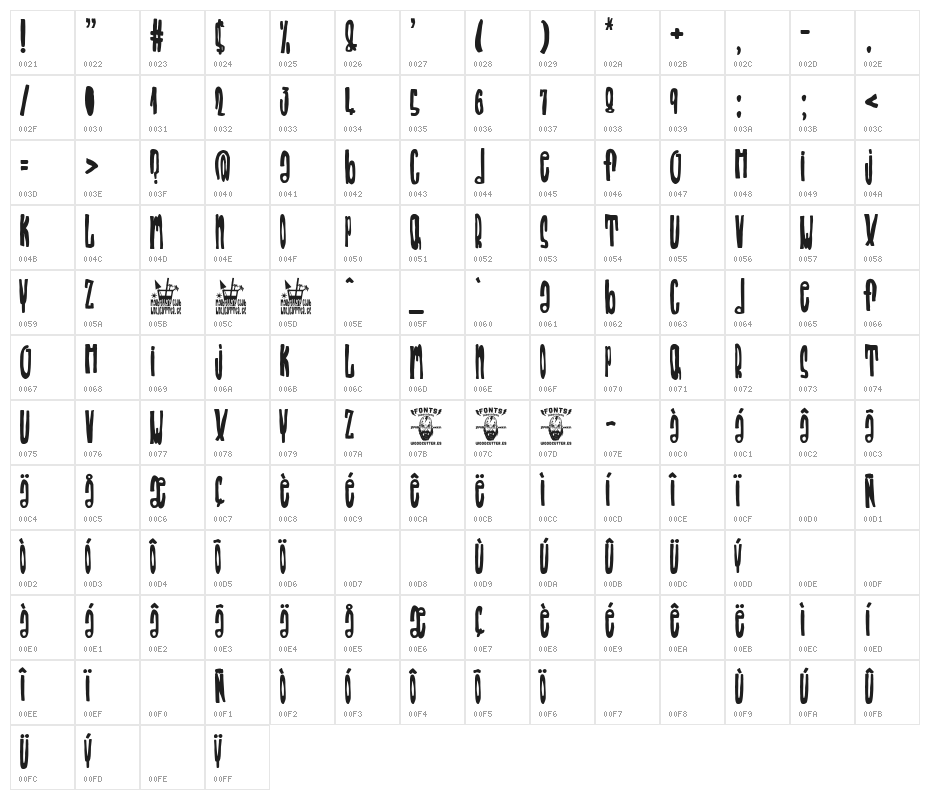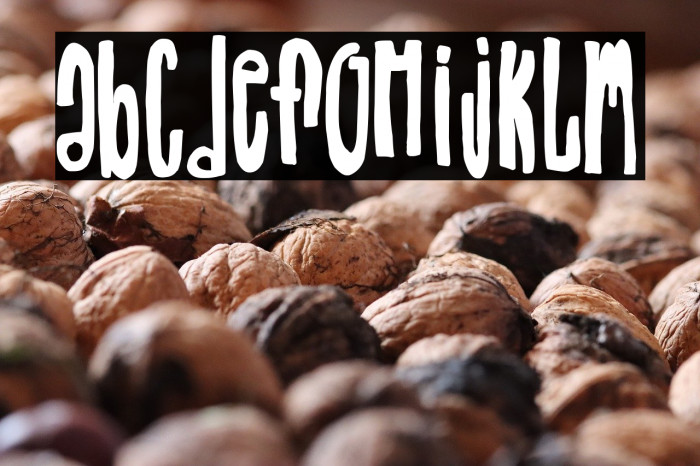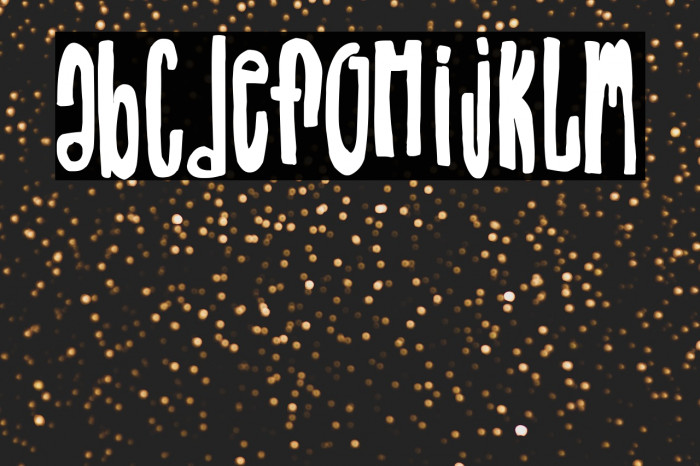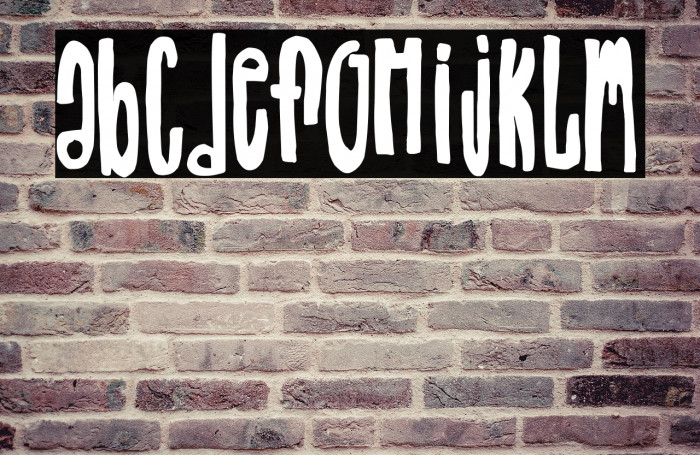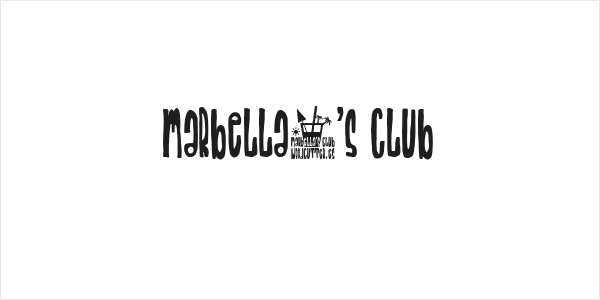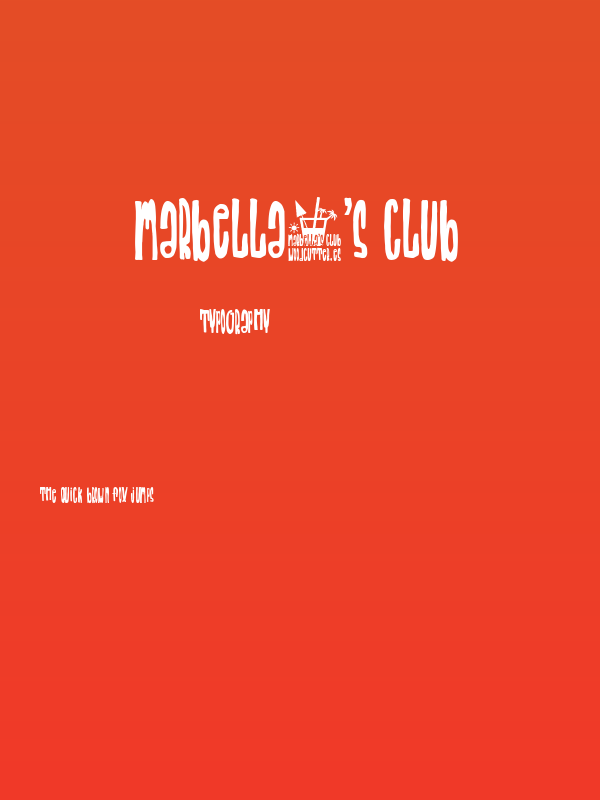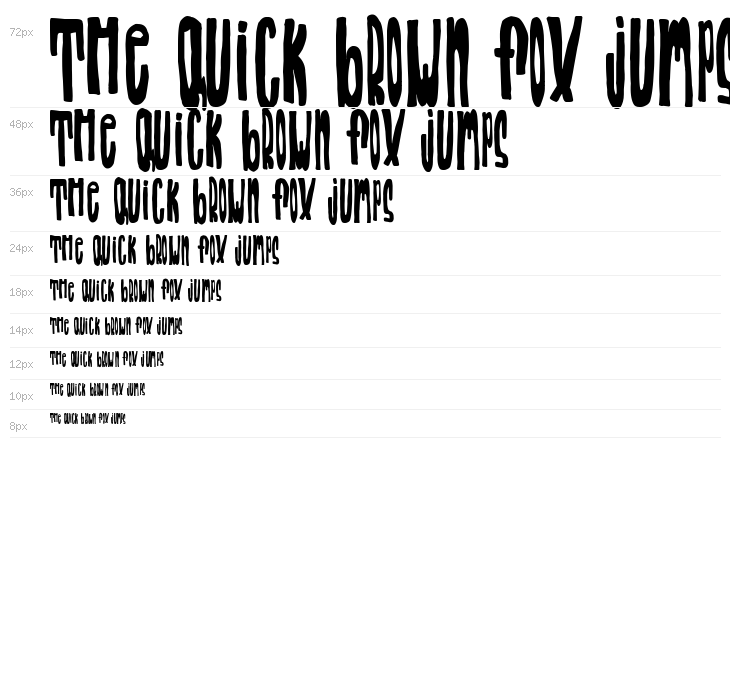
Marbella's Club Font
Marbella's Club Description
This font features a bold and playful design with elongated, irregular letterforms that give it a whimsical and artistic feel. The characters are tall and narrow, with varying stroke thickness that adds a dynamic and lively appearance. The font includes both uppercase and lowercase letters, numbers, and a selection of special characters. Its unique style makes it stand out, with a hand-drawn quality that suggests creativity and fun. The overall look is informal and expressive, making it suitable for projects that require a touch of personality and flair.
| Proposed Projects | Ideal for creative projects such as posters, children's books, playful branding, and artistic invitations. |